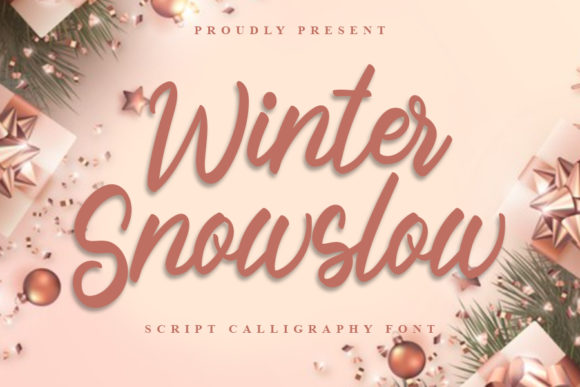
Welcome and discover the Winter Snowslow Script Font, a captivating handwritten font by FreshTypeINK. Dive into the world of personalization and artistry as this font takes you on an enchanting journey.
Winter Snowslow is the epitome of elegance and uniqueness. Its carefully crafted strokes and delicate curves exude a timeless charm that adds a touch of sophistication to any design. With its beautiful intricacies and flowing aesthetic, this font elevates your projects beyond the ordinary.
Step into a world of creative possibilities with Winter Snowslow. Its versatility knows no bounds, whether you're crafting heartwarming wedding invitations, expressing gratitude with personalized thank you cards, creating captivating logos, or designing stunning greeting cards. Let your imagination soar as you explore the endless applications of this versatile font.
Immerse yourself in the allure of Winter Snowslow, and experience the magic it brings to your designs. Its graceful lines and enchanting characters are perfect for capturing the essence of special occasions, adding a touch of allure to your projects.